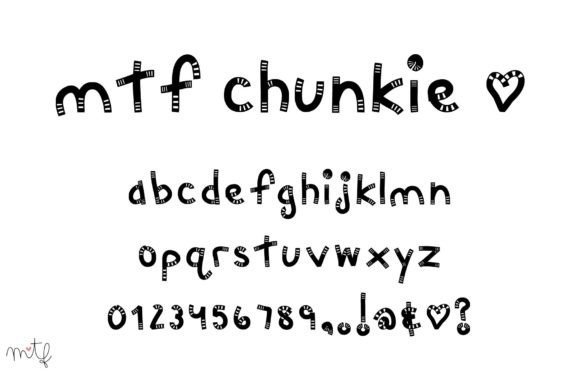
The Perfect Font for Your Happy Creations
You know that moment when you’re feeling inspired, and your creative juices start flowing? Maybe you’re working on a new project, or simply jotting down your thoughts in a journal. Whatever the case, you want your design to reflect your happiness and playfulness. That’s where Chunkie Duo Font comes in – a sweet and adorable font that’s perfect for those special moments.
This charming duo font combines decorative and dingbats elements to create a unique visual experience. Whether you’re designing a front page or a personal journal, Chunkie Duo Font is a valuable asset for designers looking to add a touch of whimsy to their work. Its bold characters make it perfect for headings, while its playful nature makes it ideal for creative projects.
Chunkie Duo Font Key Features
- Character Set: This font features a unique set of characters, including uppercase and lowercase letters, numbers, and a range of punctuation marks.
- Unique Characteristics: Chunkie Duo Font has a distinctive, playful design with bold lines and rounded edges, making it suitable for use in children’s books, educational materials, and other applications where a fun, approachable font is desired.
Designer Review: Chunkie Duo Font
As a designer, I had the chance to work with the Chunkie Duo Font and I must say, it’s an interesting combination of playful and modern. ✨ The font’s bold and rounded shapes make it perfect for creating eye-catching headlines and titles. It’s also surprisingly legible even at smaller font sizes, which is a big plus. ✨ The Chunkie Duo Font comes in two styles – Chunkie Duo Regular and Chunkie Duo Bold, giving designers the flexibility to choose the right look for their project.
However, there are a few limitations to keep in mind. ⚠️ The font’s boldness can sometimes feel overwhelming, making it difficult to use for body text. Additionally, the font’s rounded shapes may not be suitable for projects that require a more professional or formal tone. ⚠️ Also, the font’s support for certain languages may be limited, which could be a concern for designers working on international projects.
Overall, I would give the Chunkie Duo Font 4 out of 5 stars. While it excels in certain areas, it falls short in others. But with some careful planning and selection, it can be a great addition to any designer’s toolkit.
- Strengths: Playful and modern, bold and rounded shapes, legible even at smaller font sizes
- Weaknesses: Can feel overwhelming at larger font sizes, may not be suitable for professional or formal projects, limited language support
Chunkie Duo Font is perfect for creating playful and eye-catching designs. Use it for:
- Children’s book covers and illustrations
- Food labels and packaging
Remember to experiment with different font sizes and styles to get the most out of Chunkie Duo Font!